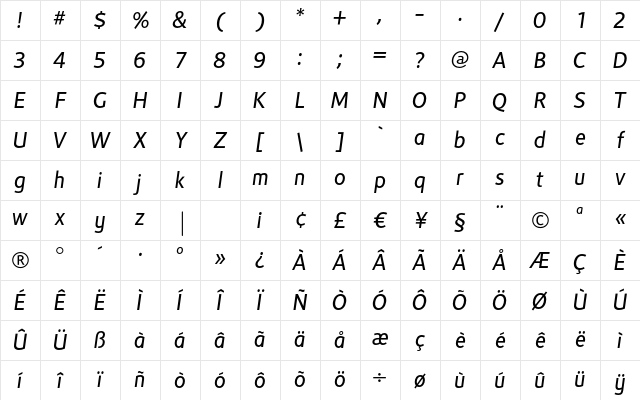
Complete Metrolis ItalicoAlt glyph index. Displaying only characters natively supported by Metrolis ItalicoAlt font.
Metrolis is a composed and adaptable typeface that performs quietly and consistently across a wide range of design contexts. The slanted form adds forward momentum and visual energy.